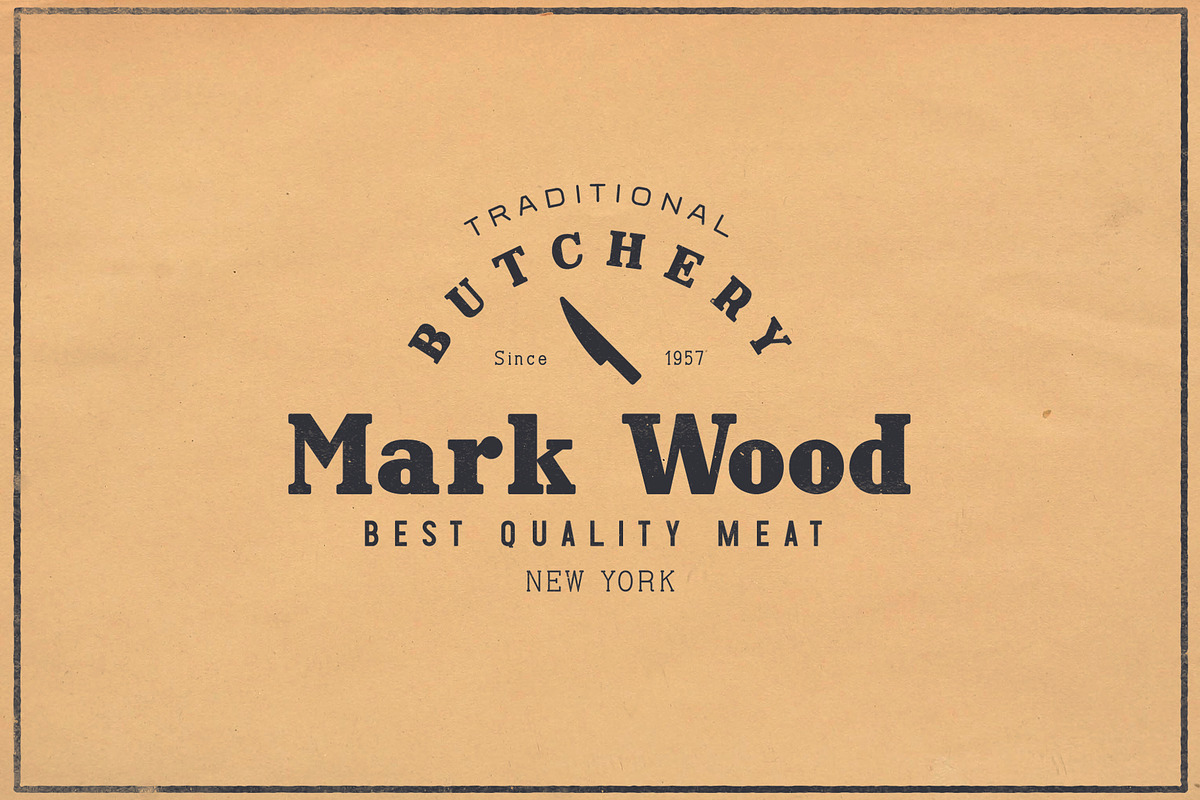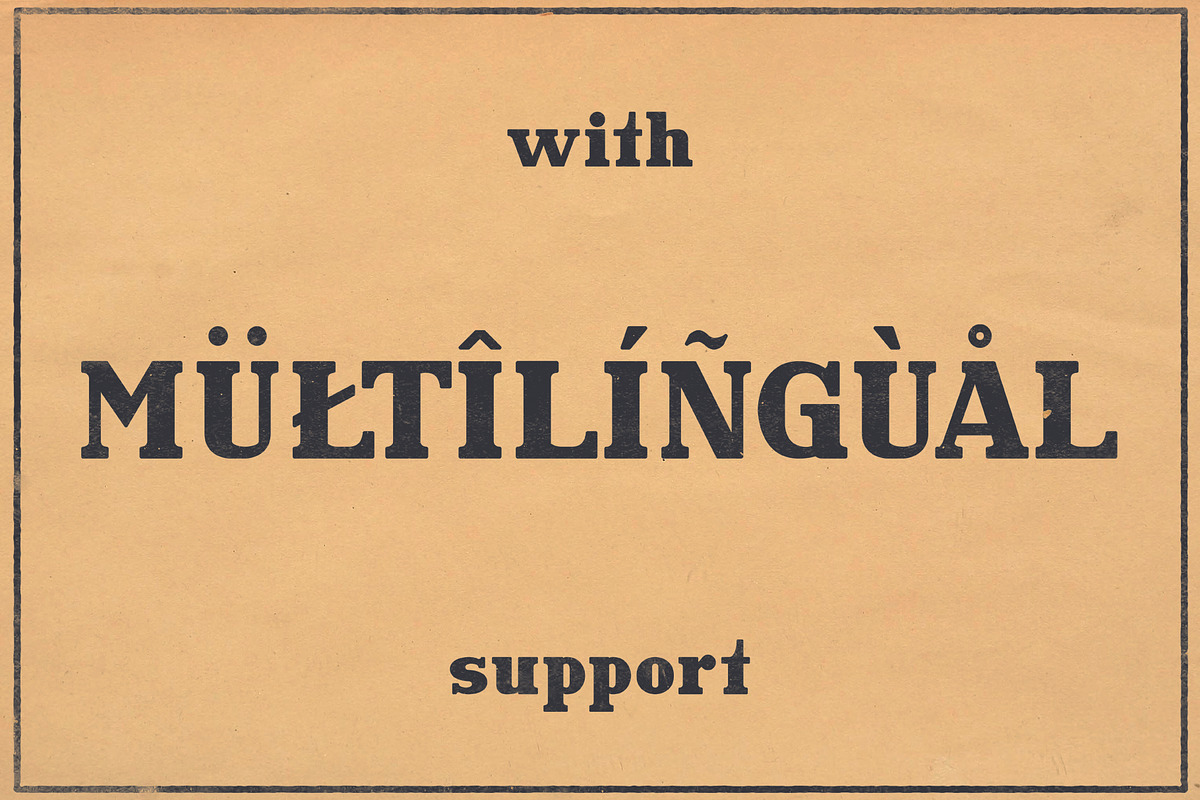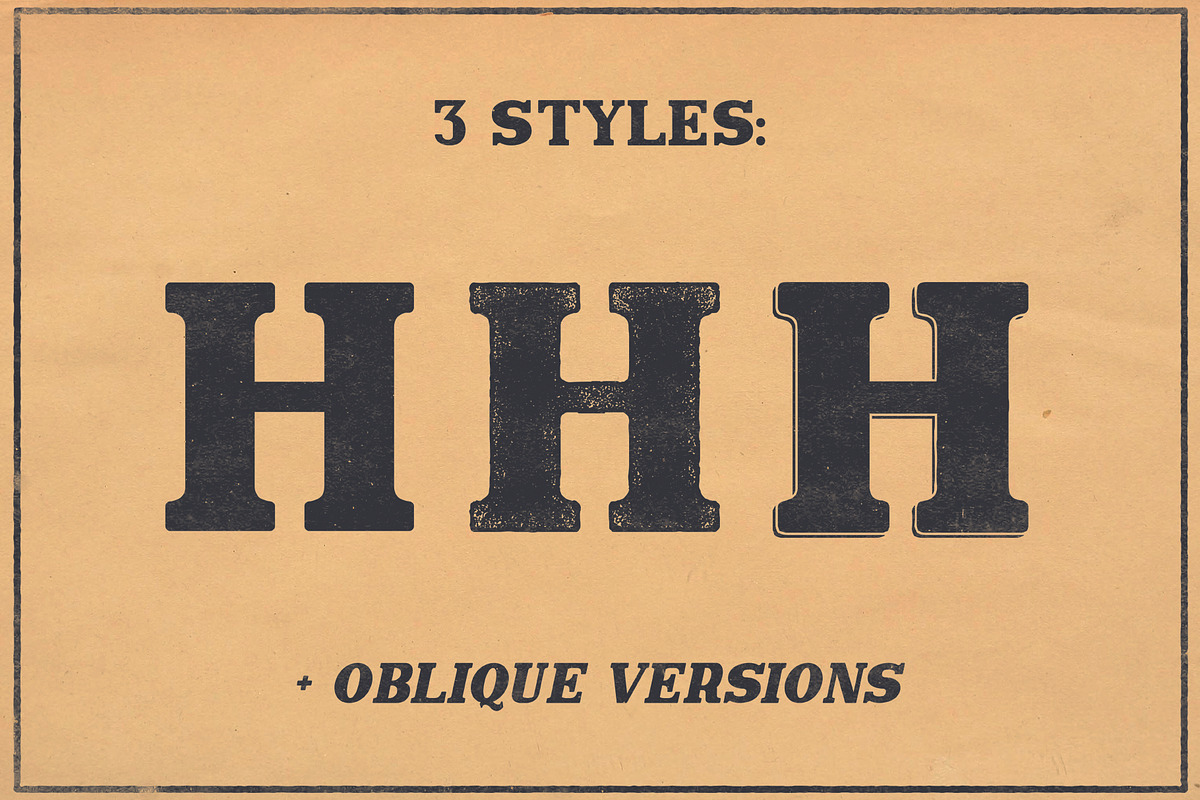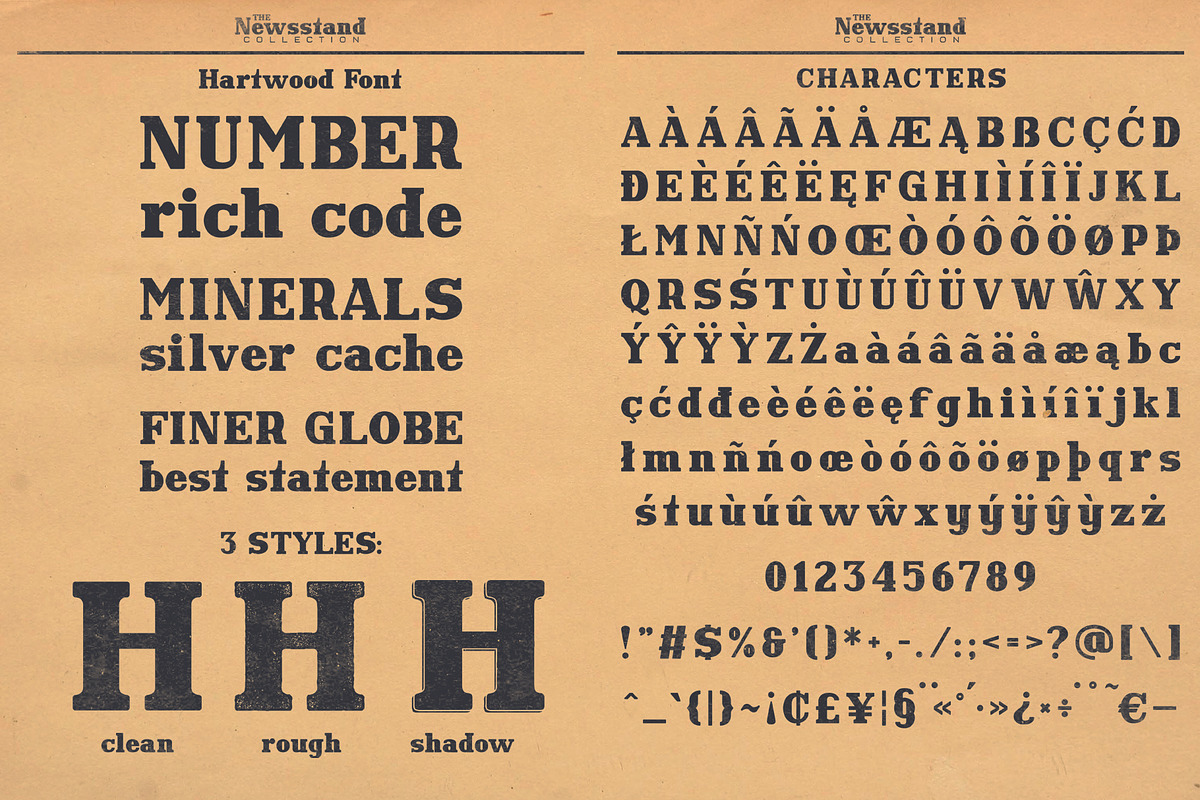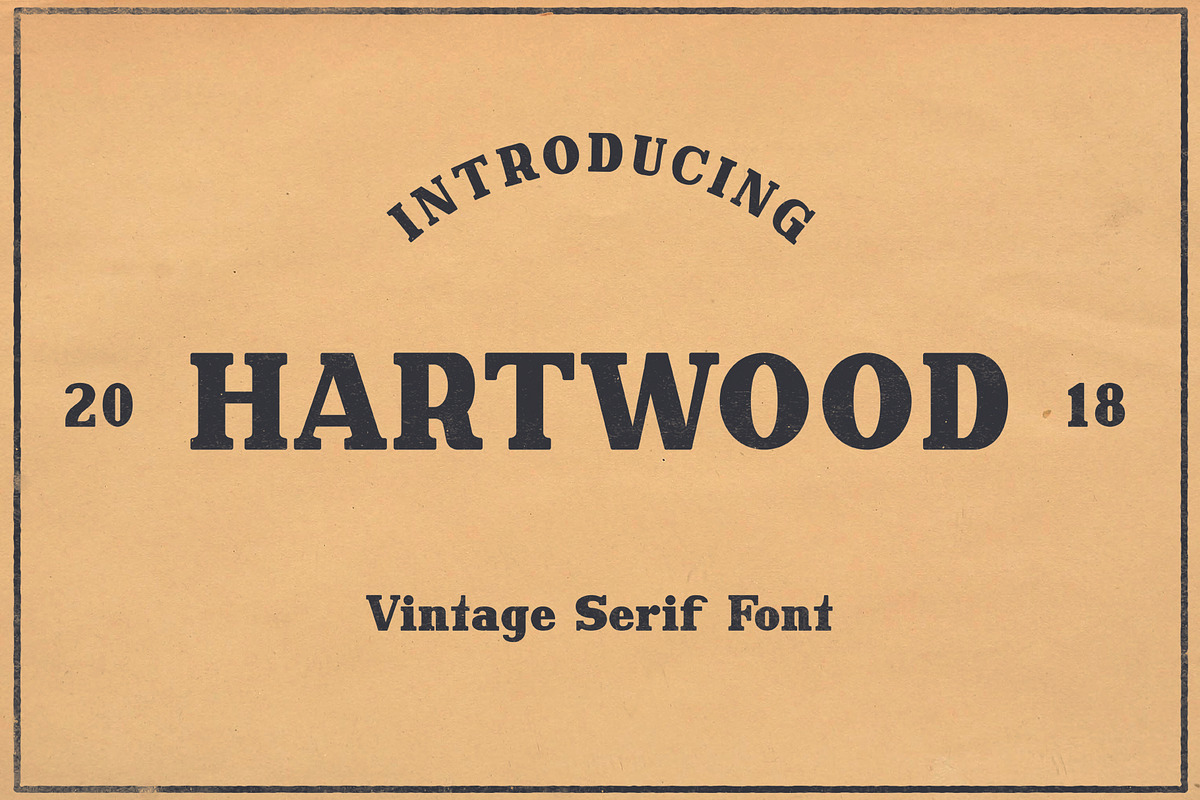
Hartwood Font
Hartwood is a vintage display serif font with upper and lower case letters inspired by retro newspapers and journals headers. Hartwood comes in three styles: clean, rough and shadow (+ oblique version for each style). This typeface is great for headers, logos, signs, labels, brandings and more. Enjoy!
Hartwood comes in six styles:
Hartwood Font Update 1.1: